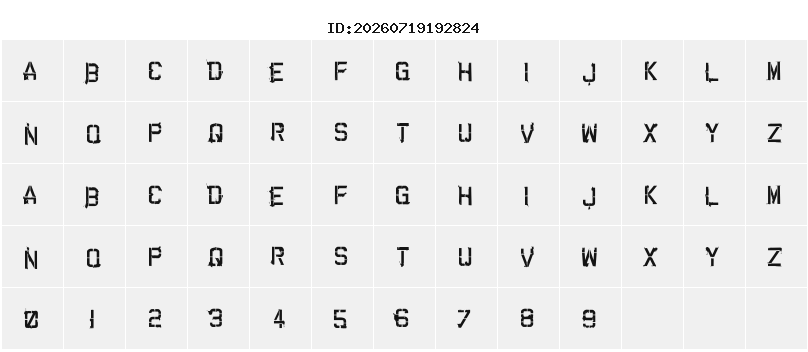
CARTAZ Preview
• Font Name: CARTAZ
• Full Font Name: CARTAZ
About CARTAZ.ttf
CARTAZ.ttf is a modern, elegant sans-serif font designed for ultimate readability and visual harmony. Perfect for branding, headlines, web design, and print materials.